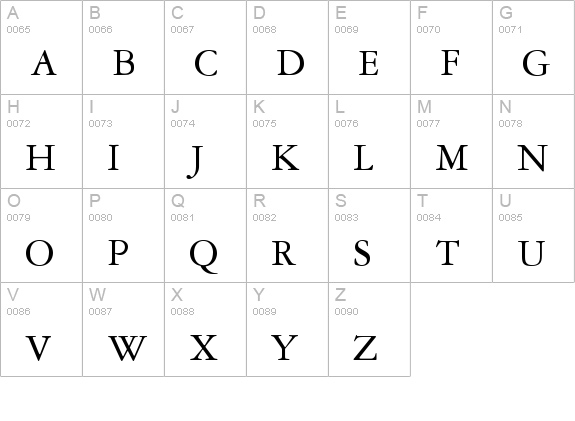
Garamond Reprise SSi Font Details
Garamond Reprise SSi font is a timeless and elegant typeface that exudes sophistication and class. With its delicate curves and graceful letterforms, this font captures the essence of traditional typography while adding a contemporary twist. This versatile font is perfect for a wide range of design projects, from elegant invitations and wedding stationery to luxurious branding and editorial layouts. Its legibility and readability make it suitable for both large and small text sizes, ensuring that your message is conveyed with clarity and style. What sets Garamond Reprise SSi font apart is not only its impeccable design, but also its accessibility. It is freely available to download at FontsMarket.com, making it a valuable asset for designers, students, and enthusiasts alike. Whether you are looking to add a touch of refinement to your personal projects or elevate the visual appeal of your professional work, Garamond Reprise SSi font is the perfect choice. Its timeless beauty and freely accessible nature make it an invaluable addition to any typographic collection.